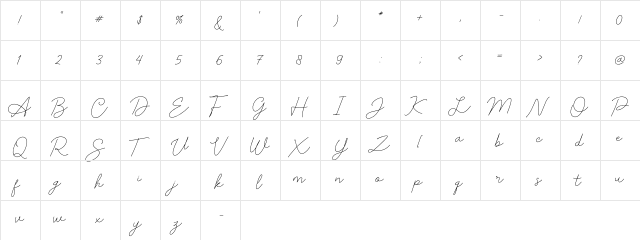
Silly Girls Regular
Design Context for Silly Girls Typeface
Silly Girls is a composed and adaptable typeface that performs quietly and consistently across a wide range of design contexts.